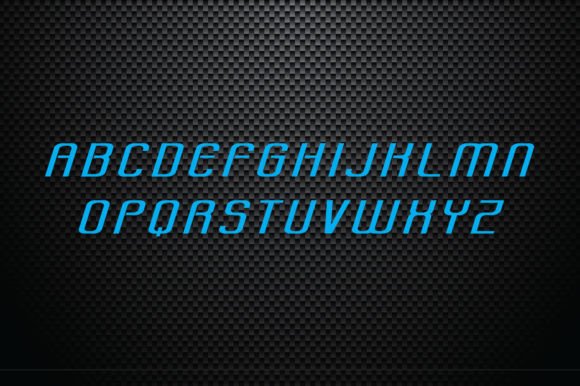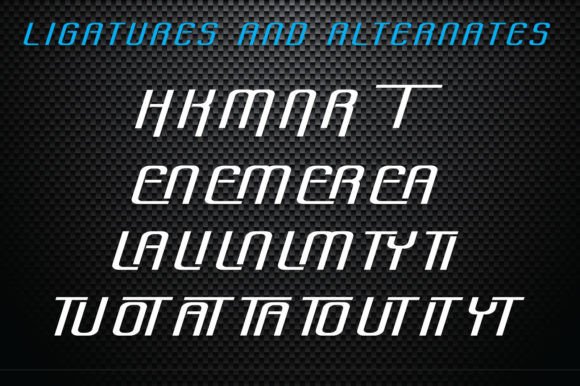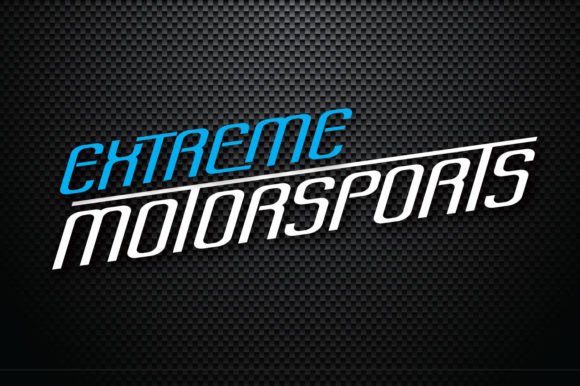
The Ultimate Font for Speed and Style: A Deep Dive into Cruiser Font
Have you ever been in the middle of a design project, and suddenly, you’re stuck on finding the perfect font? I recall a particularly frustrating experience while working on a sports branding project. My client wanted a font that screamed speed, agility, and a touch of edginess. After hours of scouring through font libraries, I stumbled upon Cruiser – a modern sans-serif logo font that instantly resonated with the project’s vibe. In this article, I’ll share my journey with Cruiser, its features, and how you can make the most of it in your creative projects.
An Honest Review of Cruiser Font
What I Love About Cruiser ✨
- ✅ Modern Aesthetic: Cruiser boasts a sleek, contemporary design that instantly elevates any project.
- ✅ Versatility: Its sans-serif structure makes it perfect for a wide range of applications, from sports and racing to technology and lifestyle.
- ✅ PUA Encoding: Being PUA encoded means that accessing glyphs and ligatures is a breeze, offering more creative freedom.
- ✅ Ease of Use: Whether you’re a seasoned designer or a hobbyist, Cruiser is easy to integrate into your workflow.
While Cruiser is an impressive font, there are a few things to keep in mind:
- 🤔 Limited Serif Options: As a sans-serif font, it might not be the best fit for projects requiring a traditional or serif look.
- 🤔 Overuse: Given its popularity, there’s a risk of overusing Cruiser. Ensure it aligns with your project’s unique identity.
- Experiment with OpenType features like ligatures and stylistic alternates to add a personal touch.
The Inspiration Behind Cruiser
Cruiser was designed with speed and agility in mind. Imagine a world where the open road meets cutting-edge design. The creators aimed to capture the essence of cruising – the freedom, the thrill, and the style. While the actual designers behind Cruiser remain a mystery, it’s clear that their goal was to craft a font that’s as versatile as it is visually striking.
| Is Cruiser suitable for body text? | While Cruiser is excellent for headings and titles, its readability for long body text may vary. It’s best used for short paragraphs or key highlights. |
| Does Cruiser support OpenType features? | Yes, Cruiser supports OpenType features, including ligatures and stylistic alternates, allowing for a high degree of customization. |
In conclusion, Cruiser is a versatile and stylish font that’s perfect for designers, crafters, and creative hobbyists looking to add a touch of speed and agility to their projects. With its modern aesthetic, ease of use, and support for OpenType features, it’s an excellent addition to any font library. So why not give Cruiser a try and see how it can elevate your designs?